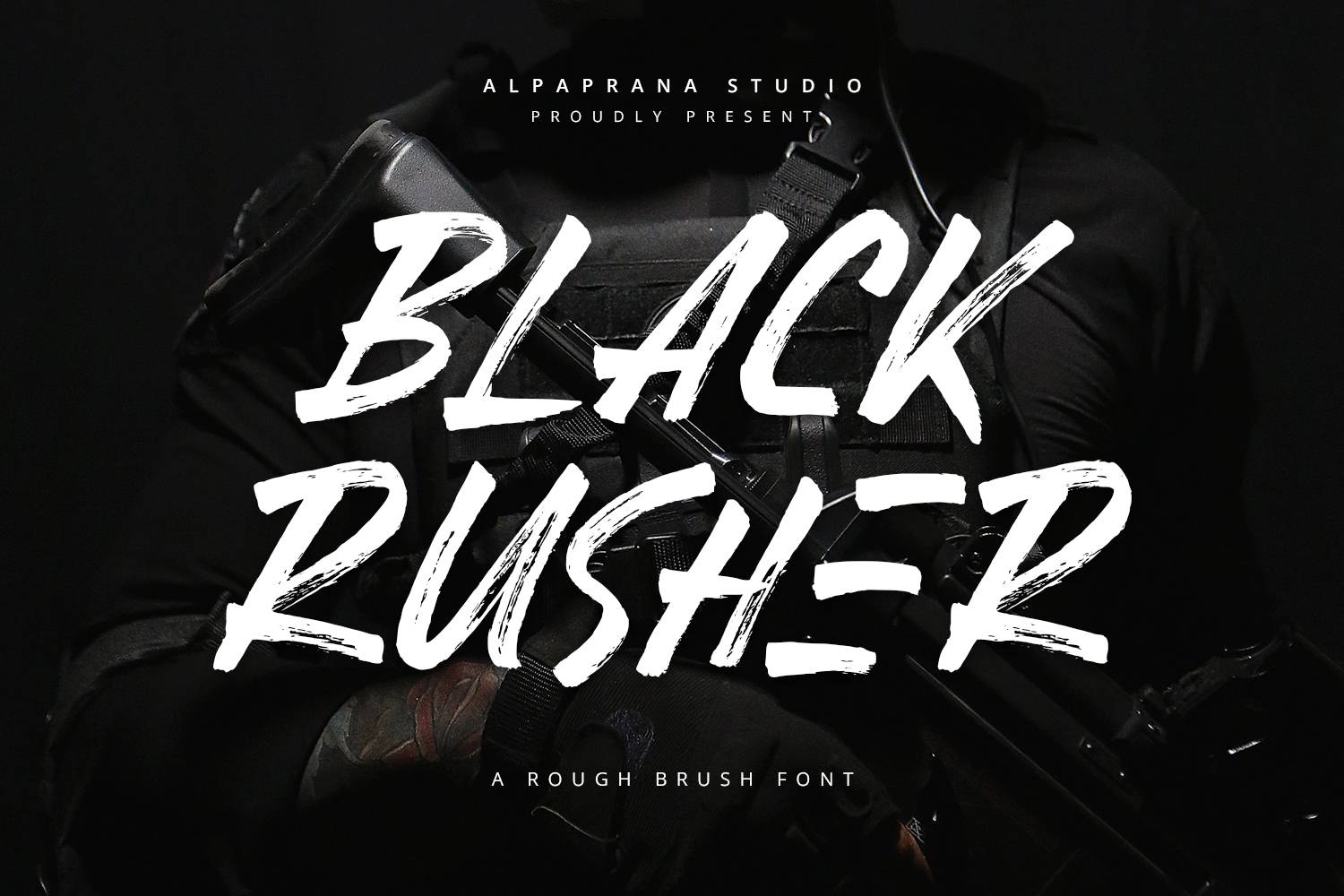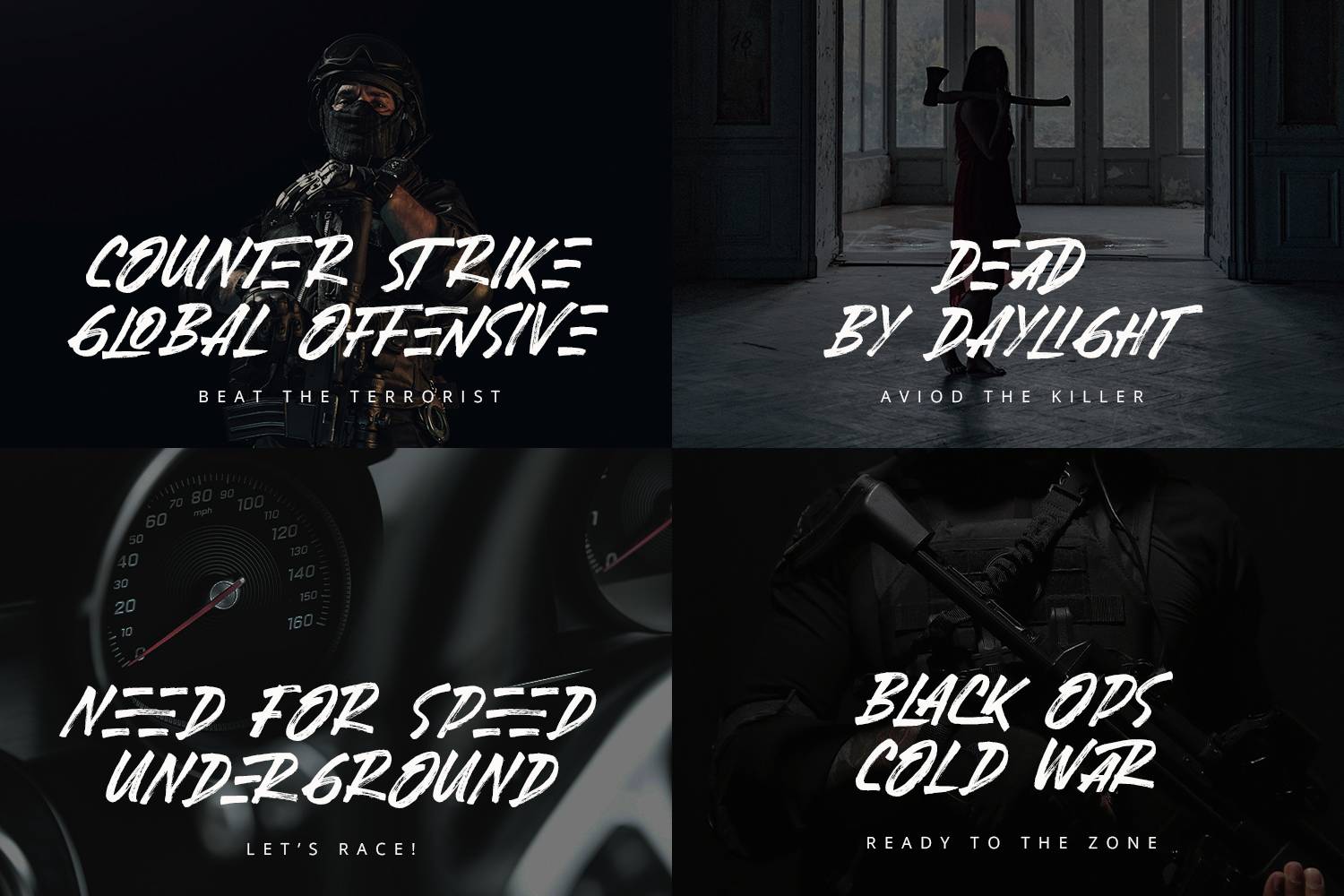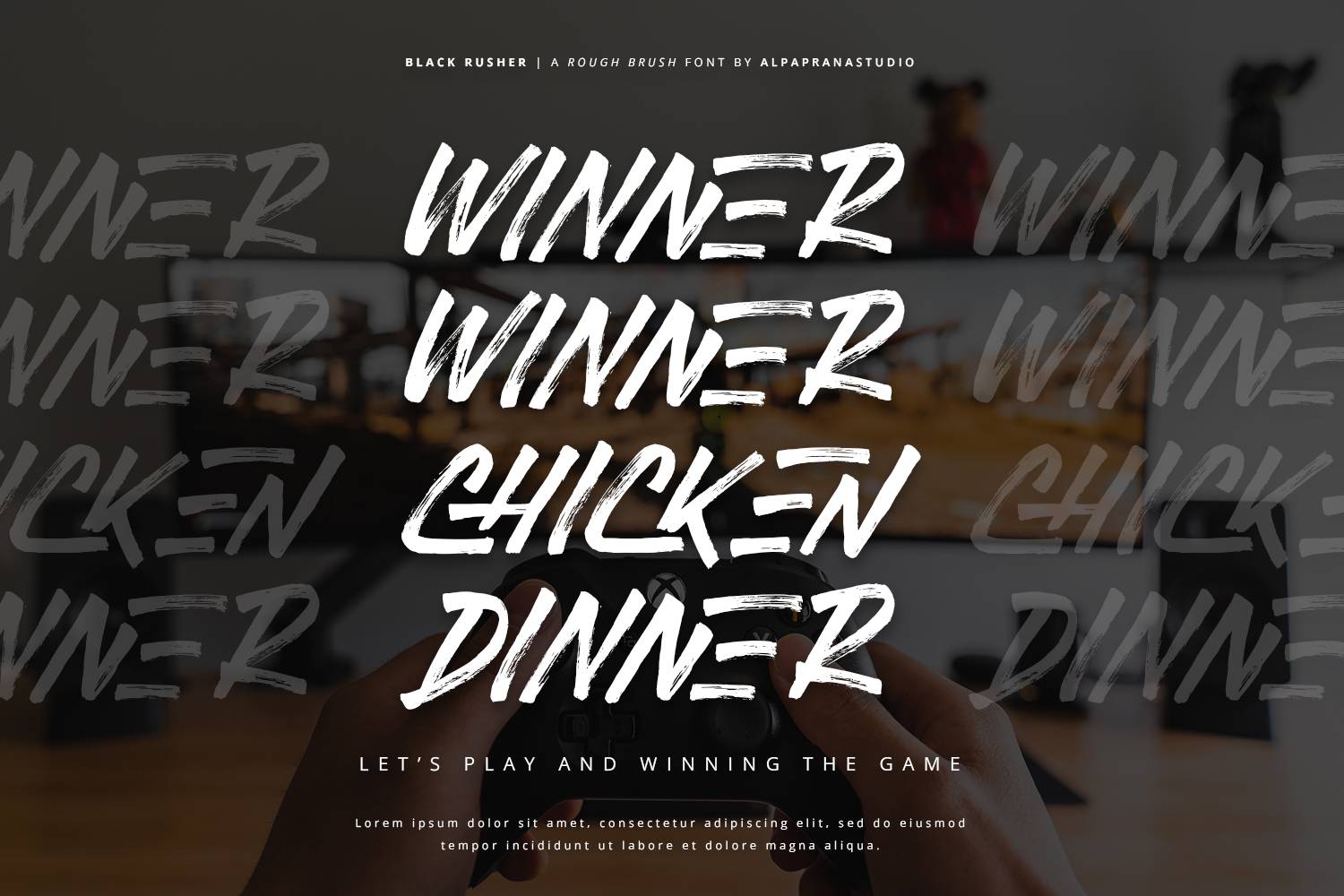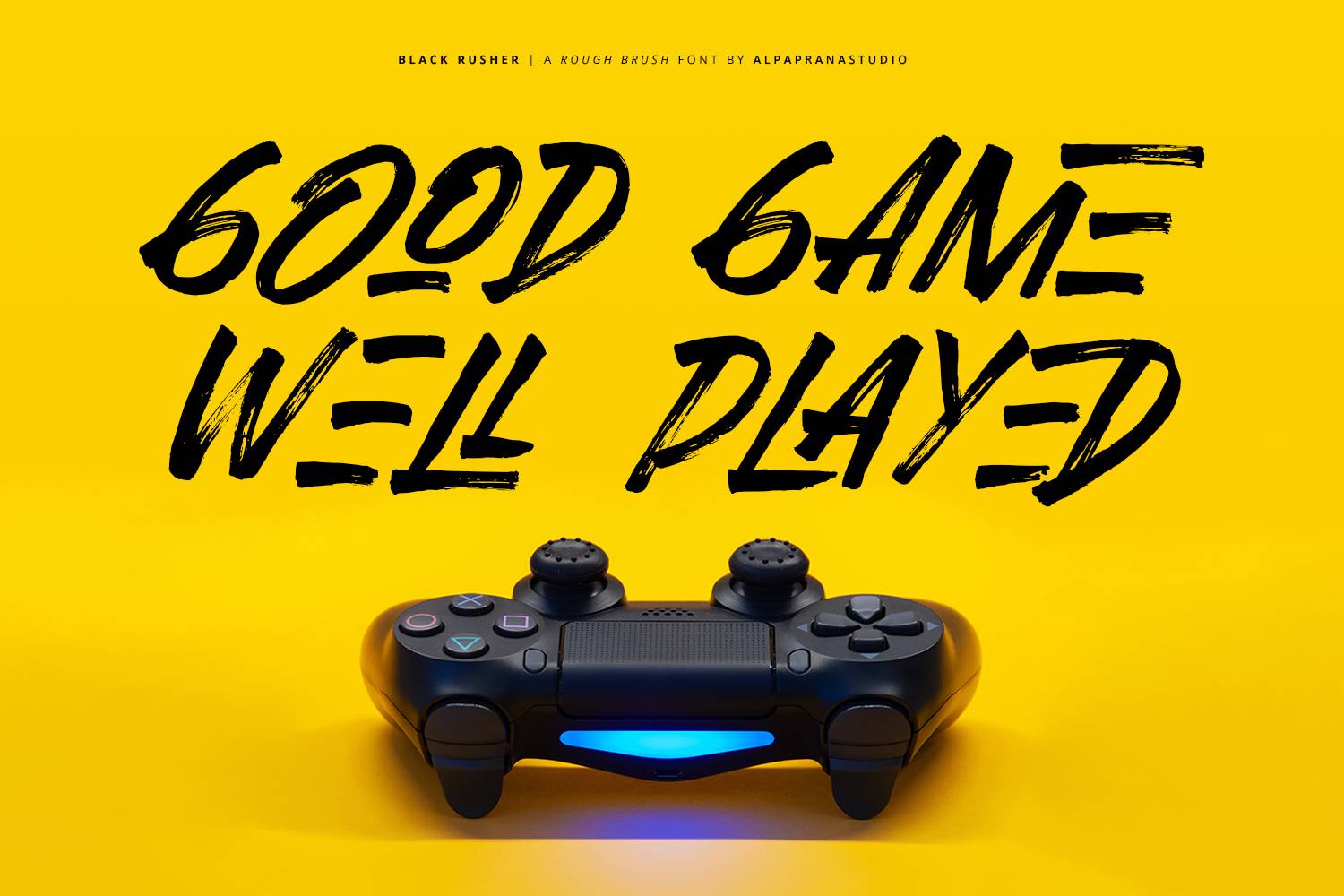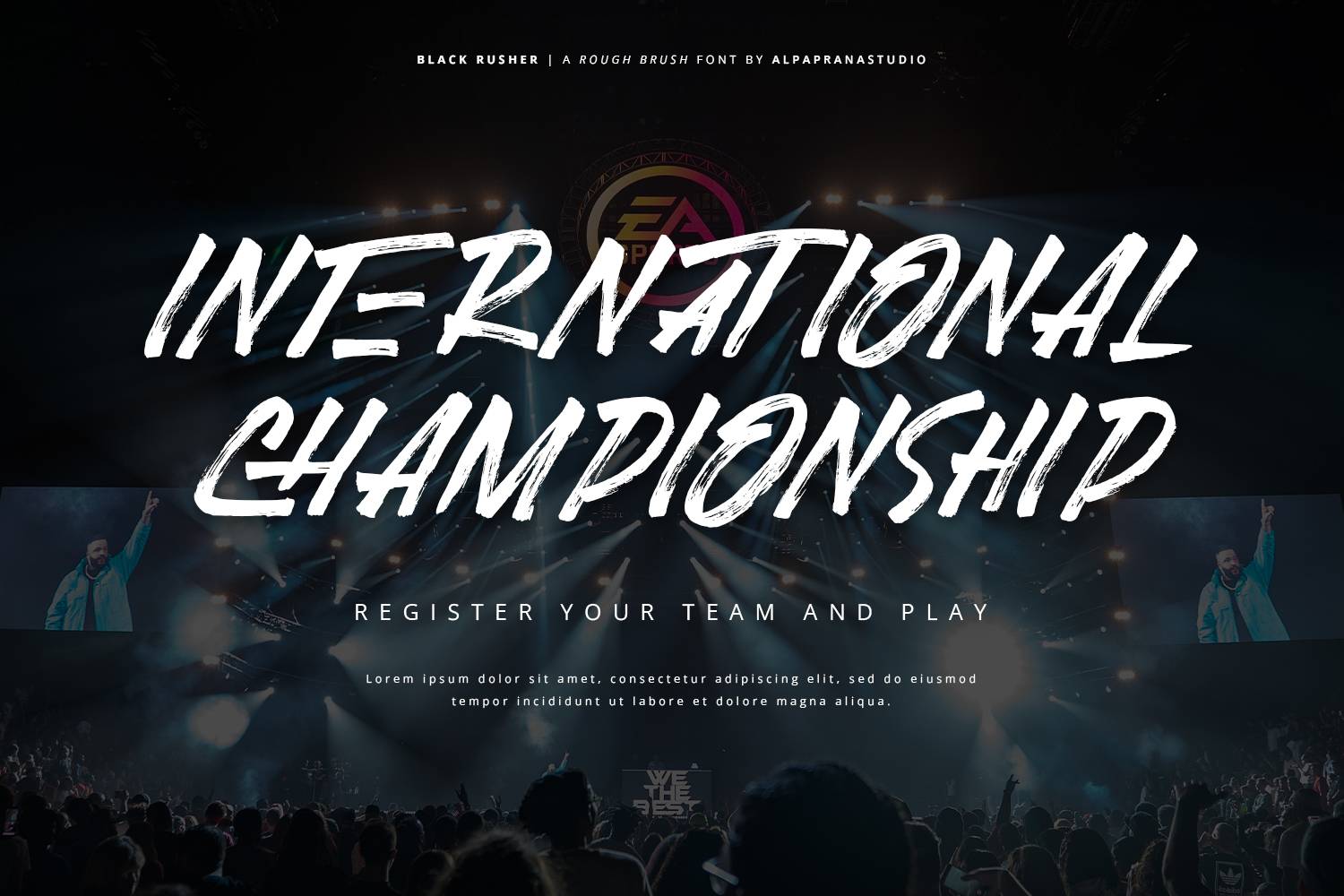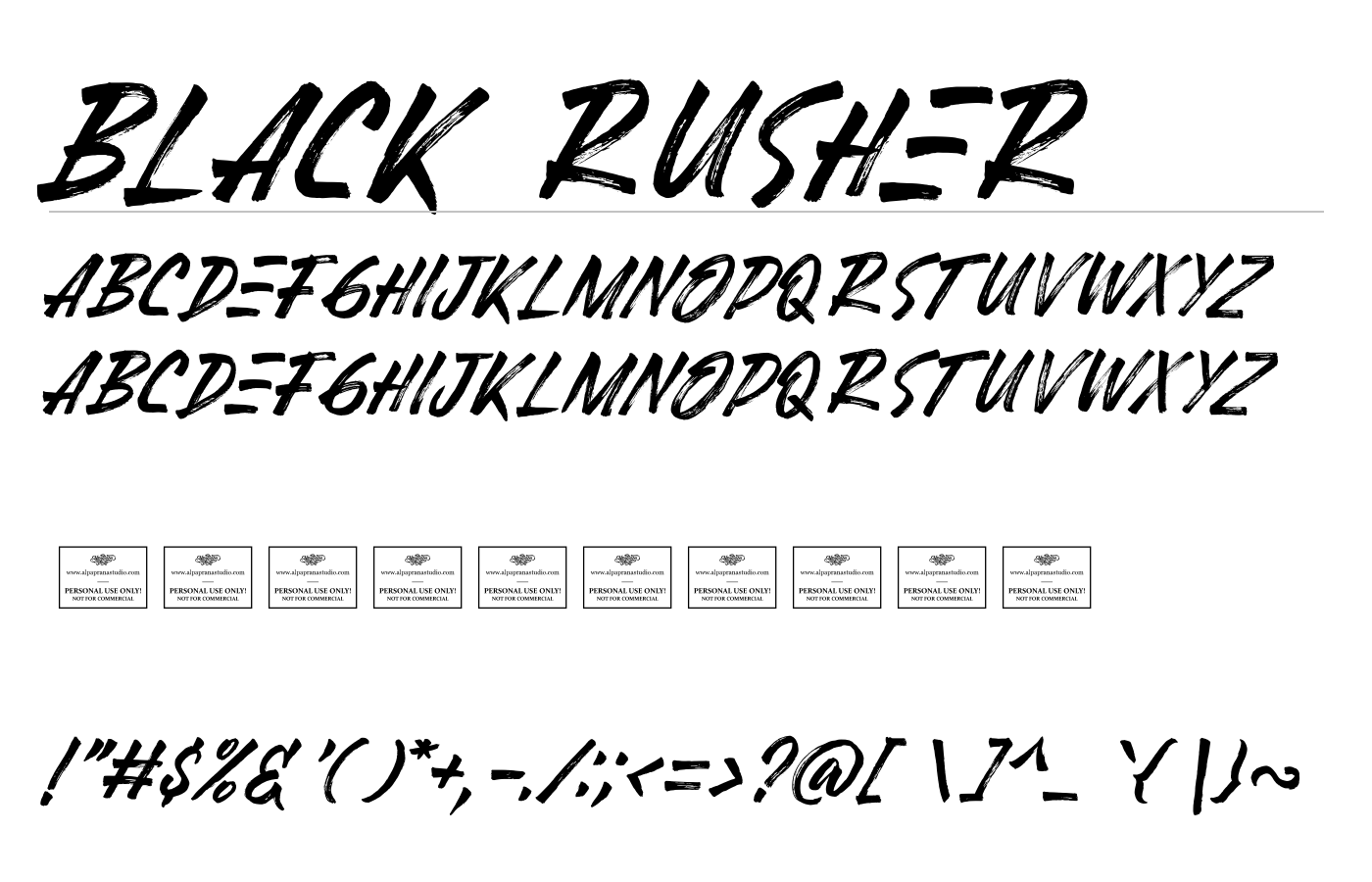
Black Rusher is a bold, brush-script font with a rough, hand-painted texture that gives it a dynamic and energetic feel. Its all-uppercase letters feature irregular strokes and slight slanting, creating a sense of movement and urgency perfect for eye-catching headlines, posters, and edgy branding. This font works well where a modern, informal style is needed to convey creativity and action.
Black Rusher Font
About Black Rusher Font